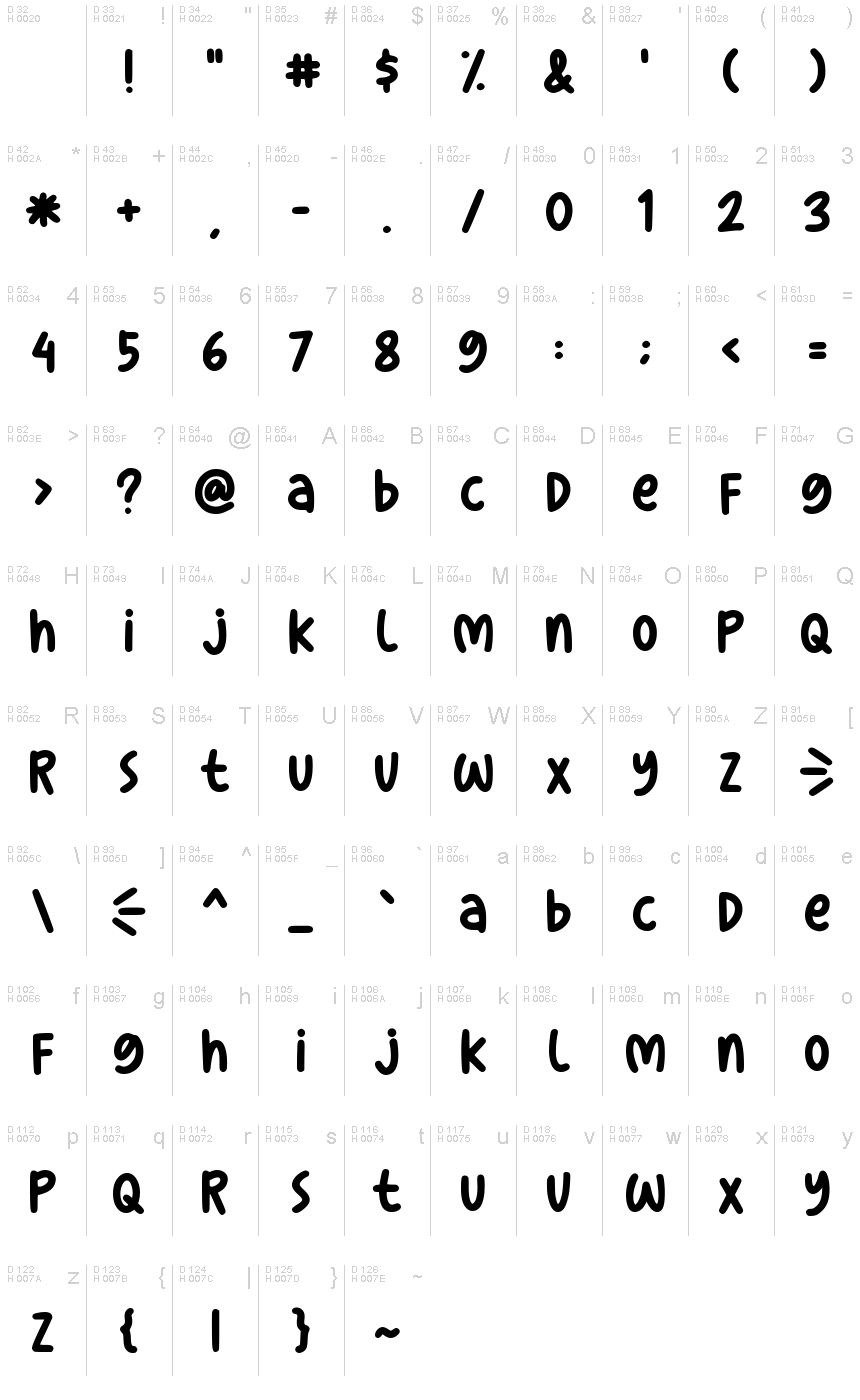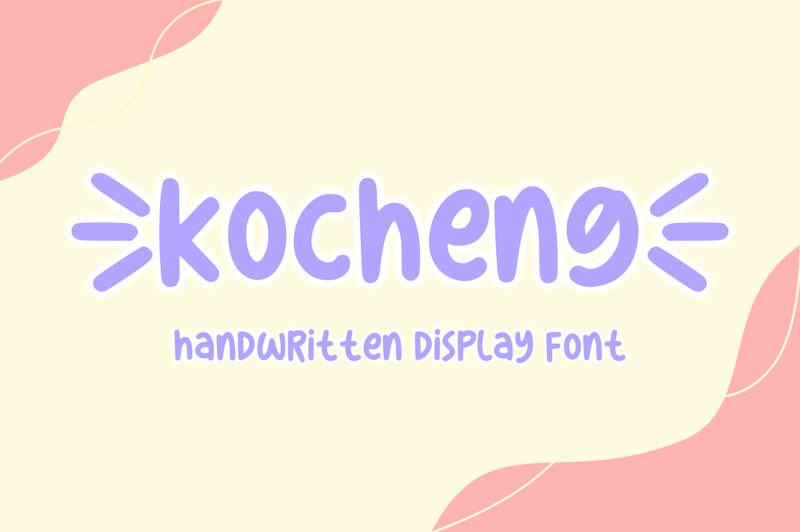
Kocheng
Kocheng font was created by RaffaSyad Studio. Kocheng is a whimsical cartoon typeface built for low contrast between thick and thin strokes making it bold yet simple. This kid-friendly set of letters is designed to inspire joyful mood with casual playful appearance and informal stroke endings. The letterforms are spacious, modern and modular making them a great choice for attention-grabbing projects like large print applications, posters and advertisements.